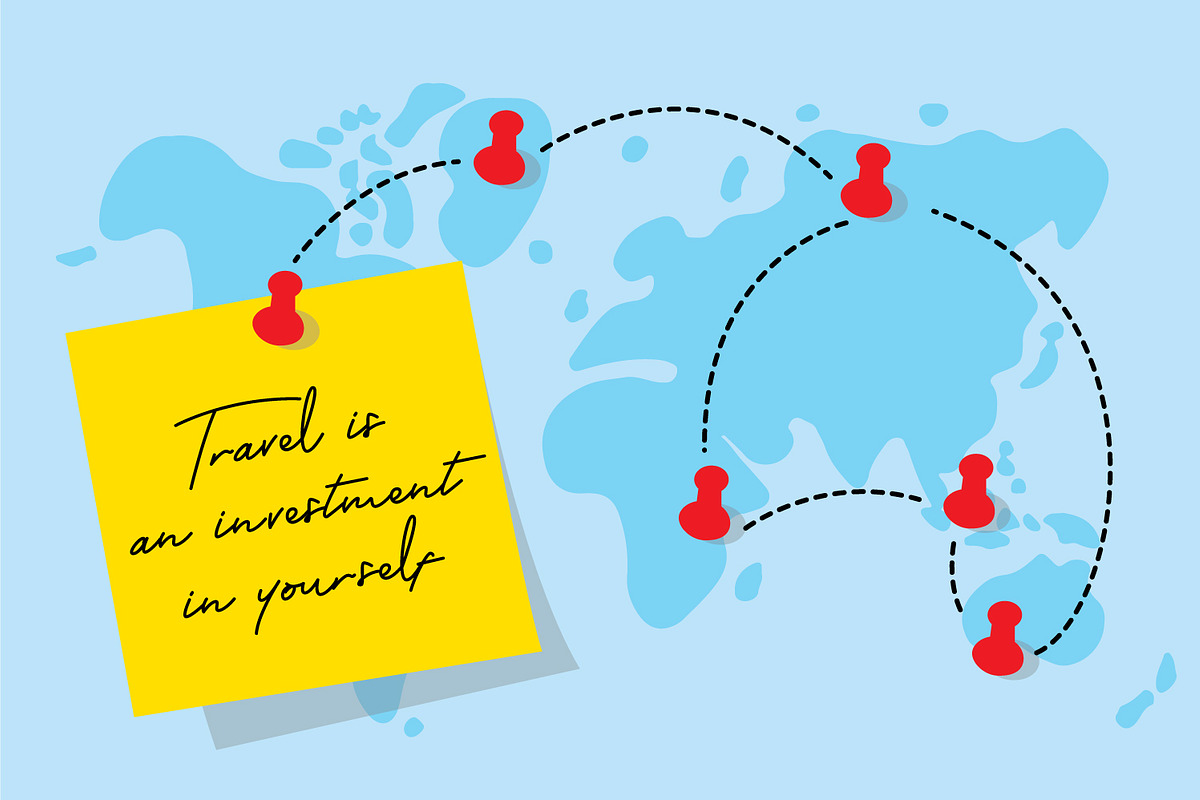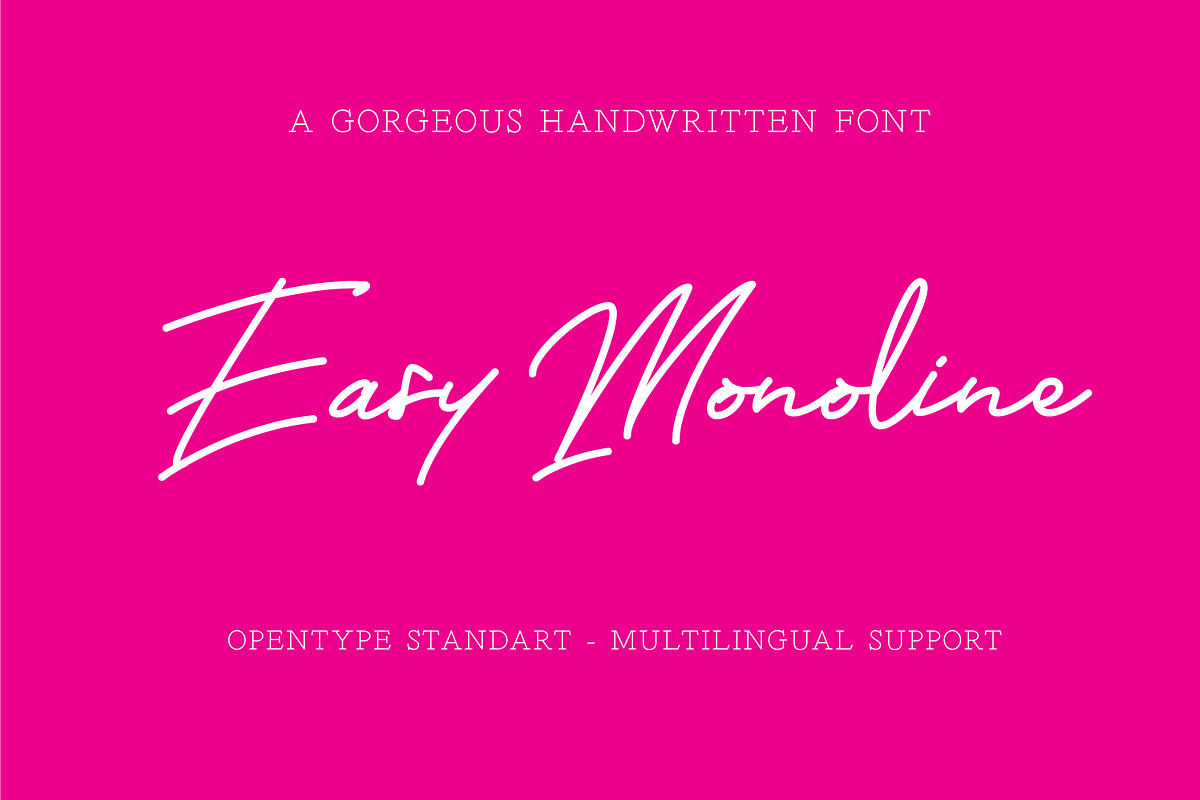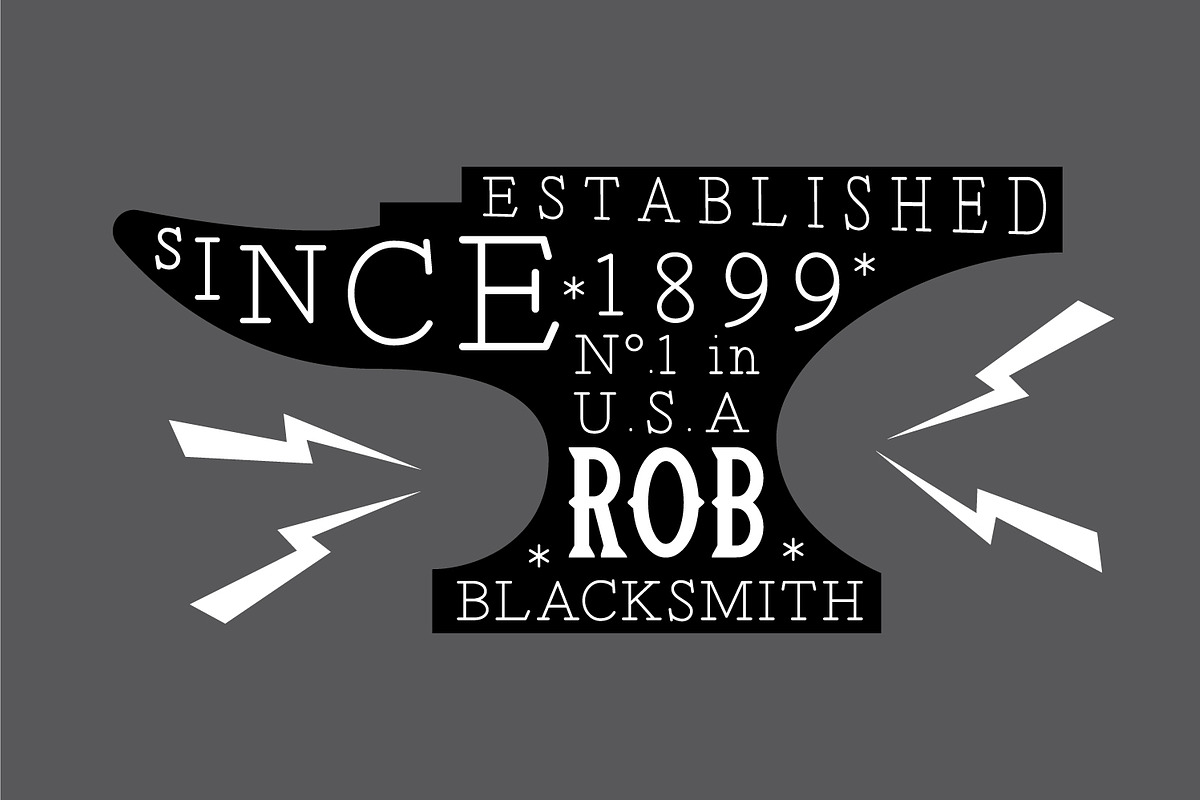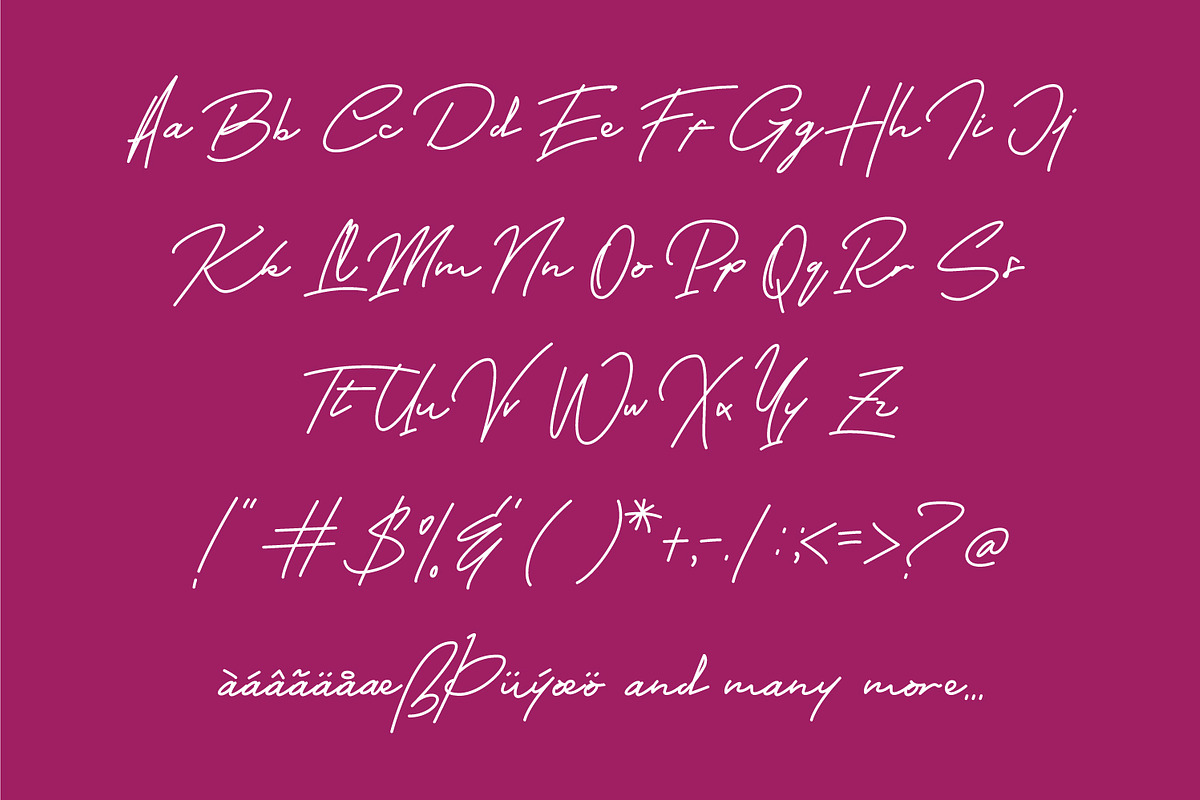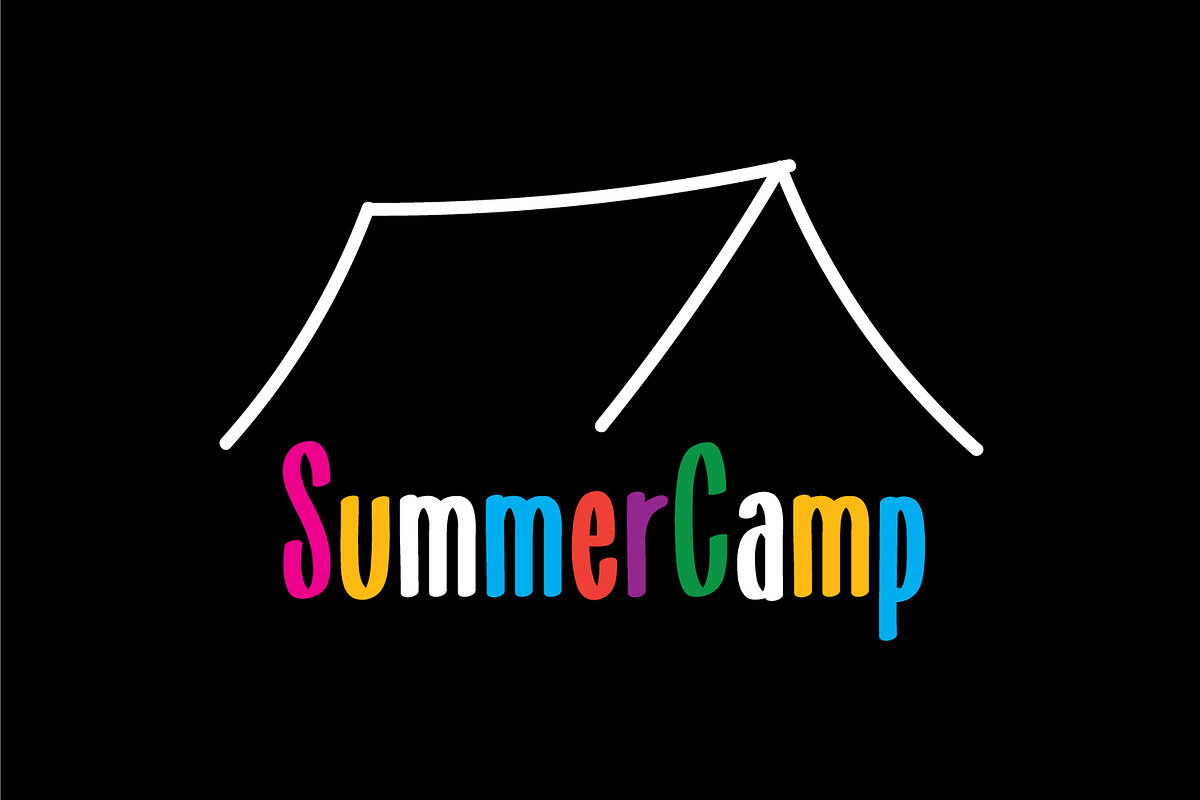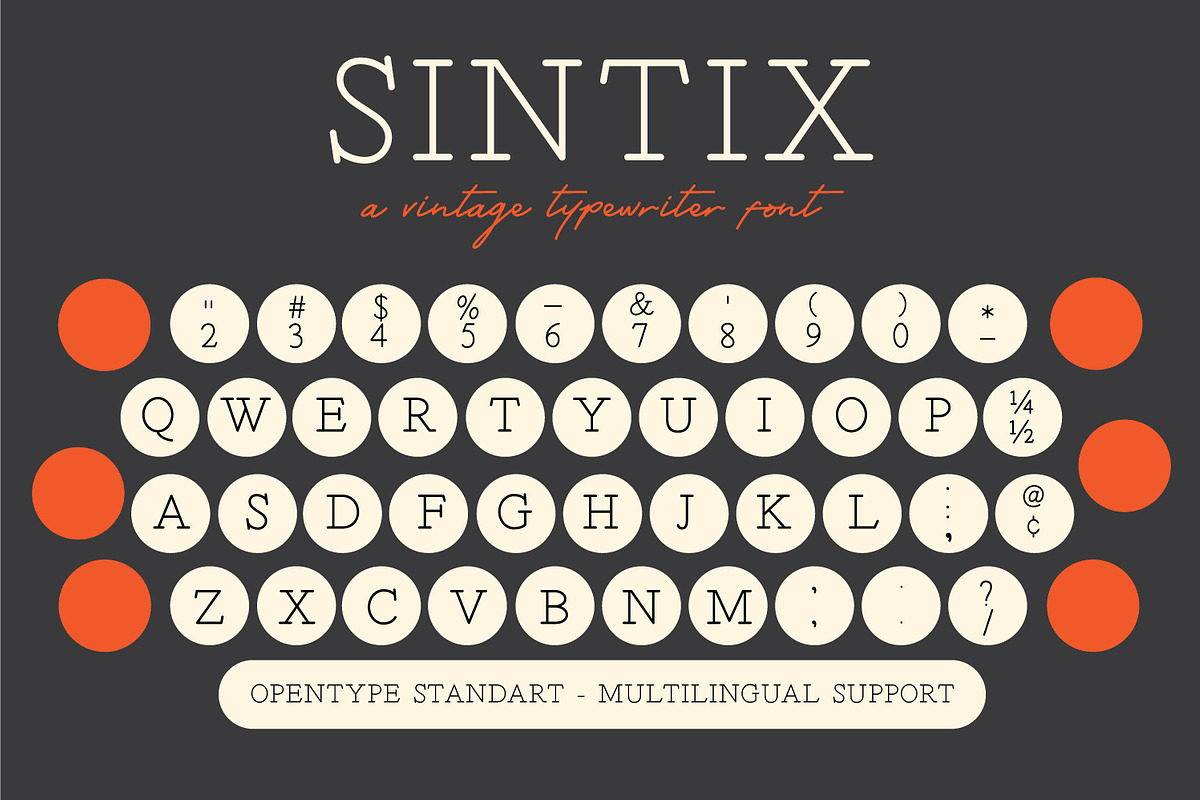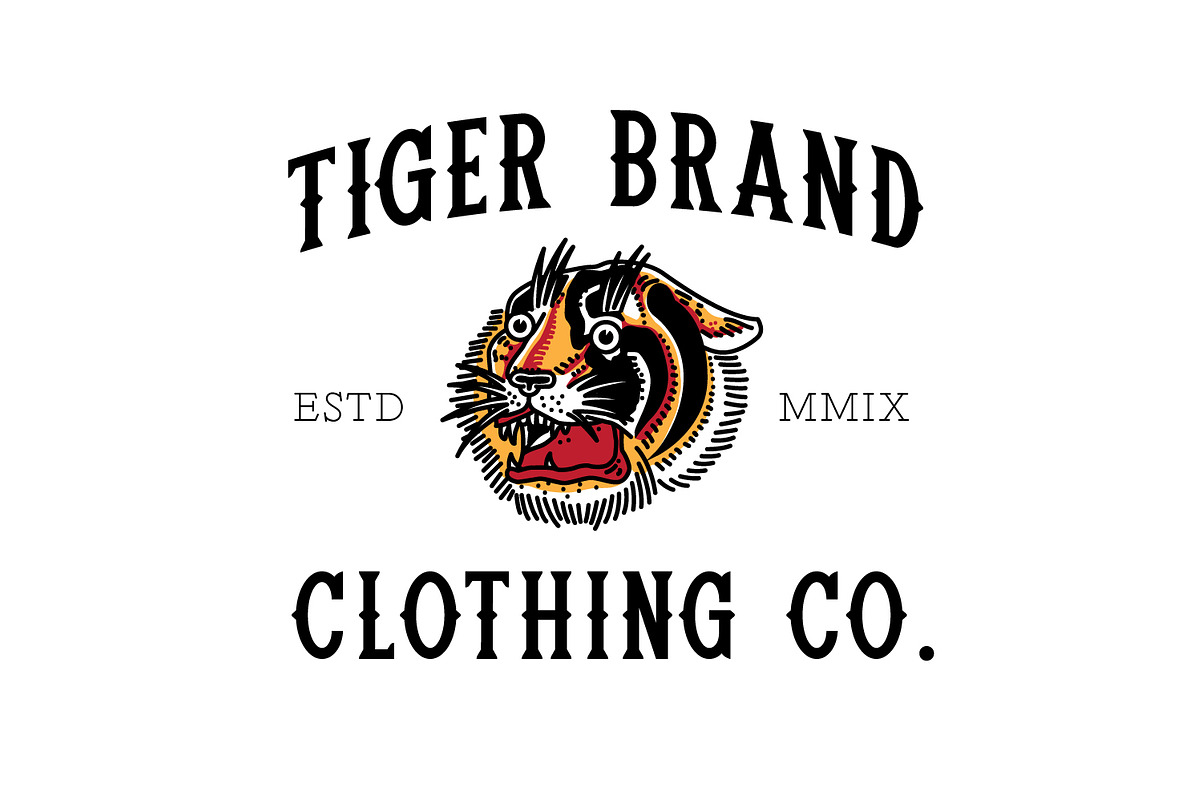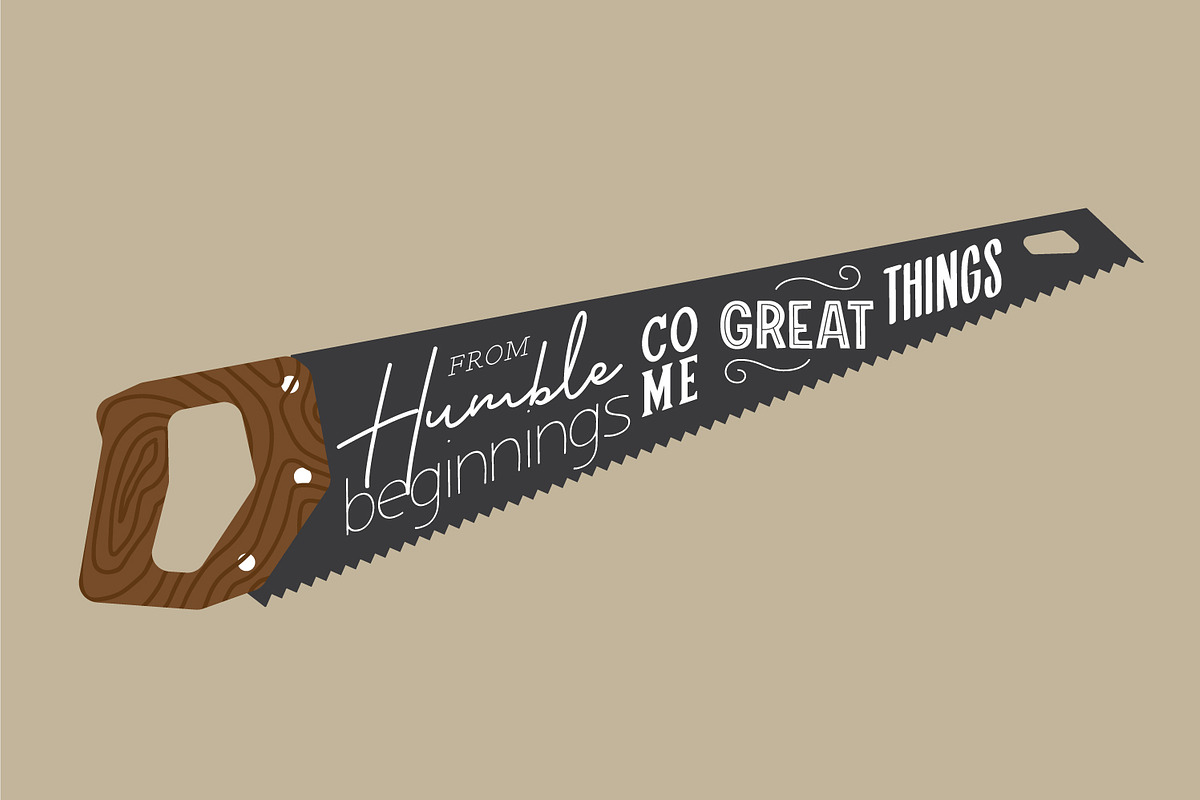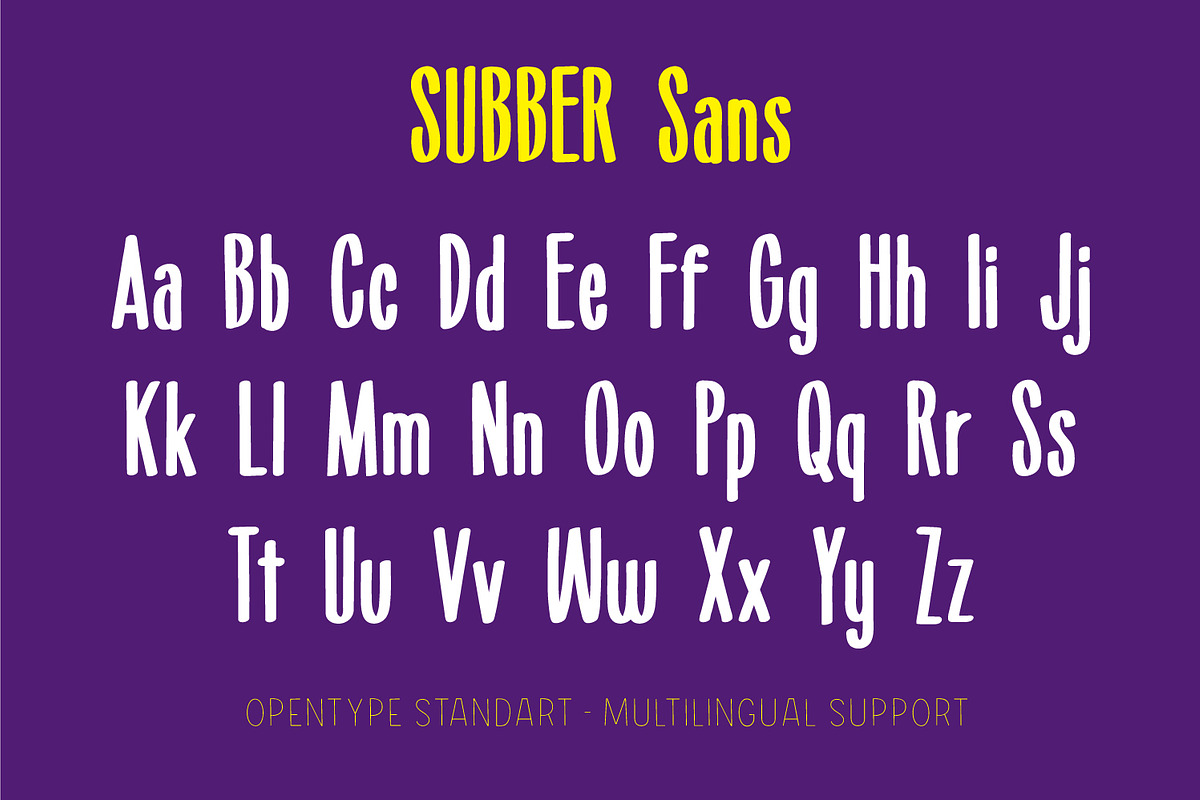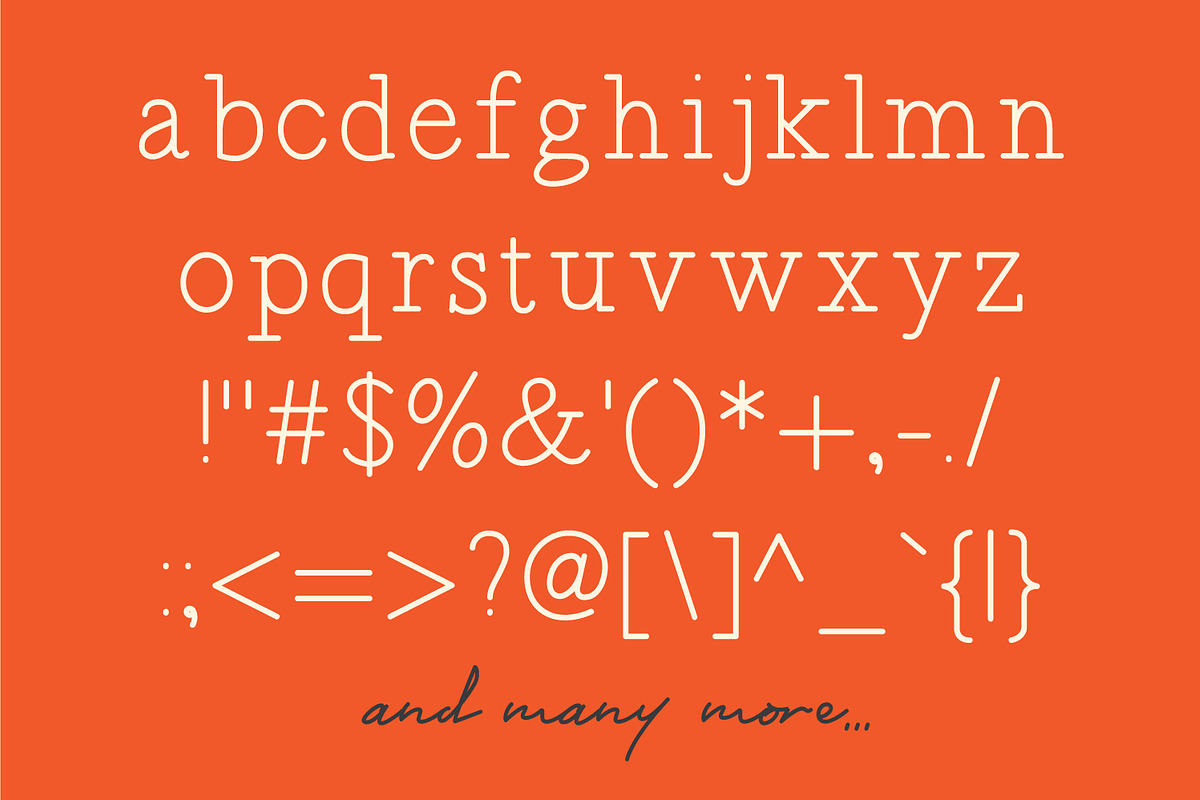
6in1 CASUAL Font Bundles
Easy, its not a clickbait. Let us introduce you, CASUAL FONT BUNDLE. A pack of SIX font and Badges Elements vector. Perfectly fit for you colorful design, casual branding, logo, presentation, magazine, sign, poster, quotes, lets just have fun!
Grotes Sans : A bold & fun sans-serif font. Perfect for a header and stuff. It contains a cool ligatures with stacked letters on it. Check out the preview, you gonna love it!
Grotes Sans Inline : A layer font for the Grotes Sans. Type it same as the Grotes sans and then put it on the top of it, centered, and boom! a cool type is on the block now :) And the good thing is it still looks good as a stand-alone typeface. Try it :)
Easy Monoline : Remember our early 2017 releases called Easy Lullabye? here it comes with the clean monoline style. Yeay!
Subber Sans : A tall sans-serif with the thick and thin implementation from brush pen hand lettering style.
Sintix : Here comes the font that we give you the free trial from our latest release. A skinny monoline serif font with implementation from a typewriter machine. Yes, for the sake of vintage things.
Rebel Four A bold and tall serif with spurs in every letters, prepare to say it out loud with this font in your design.
Badges Elements Vector A set of illustrated icons, objects, for your badges or logo assets. Play with it!